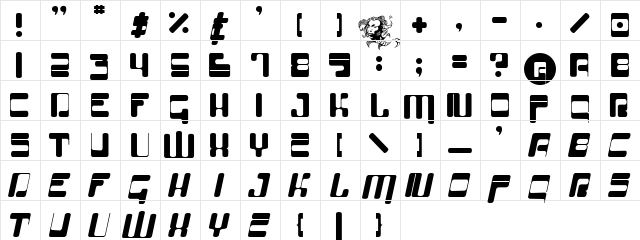
EntraTerrestrial Normal
Design Context for EntraTerrestrial Typeface
EntraTerrestrial is a composed and adaptable typeface that performs quietly and consistently across a wide range of design contexts.